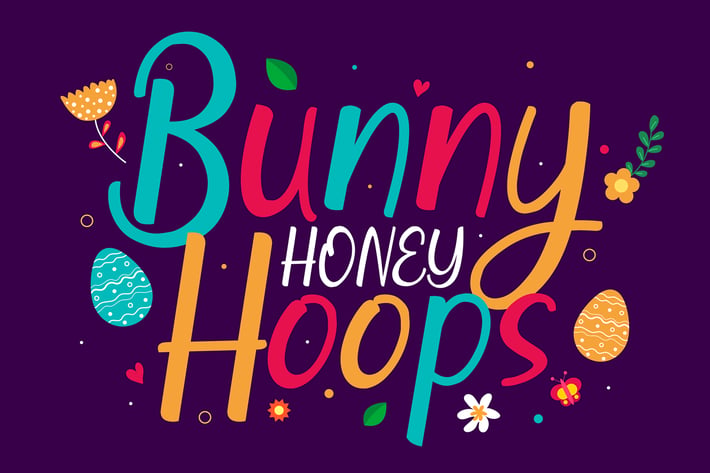
Bunny Hoops - Playful Easter Font
Say hello to Bunny Hoops font.
Made with love and joy, inspired by the warmth of easter. Kids look, so it will make your design more beautiful, cute, fun, and colorful.